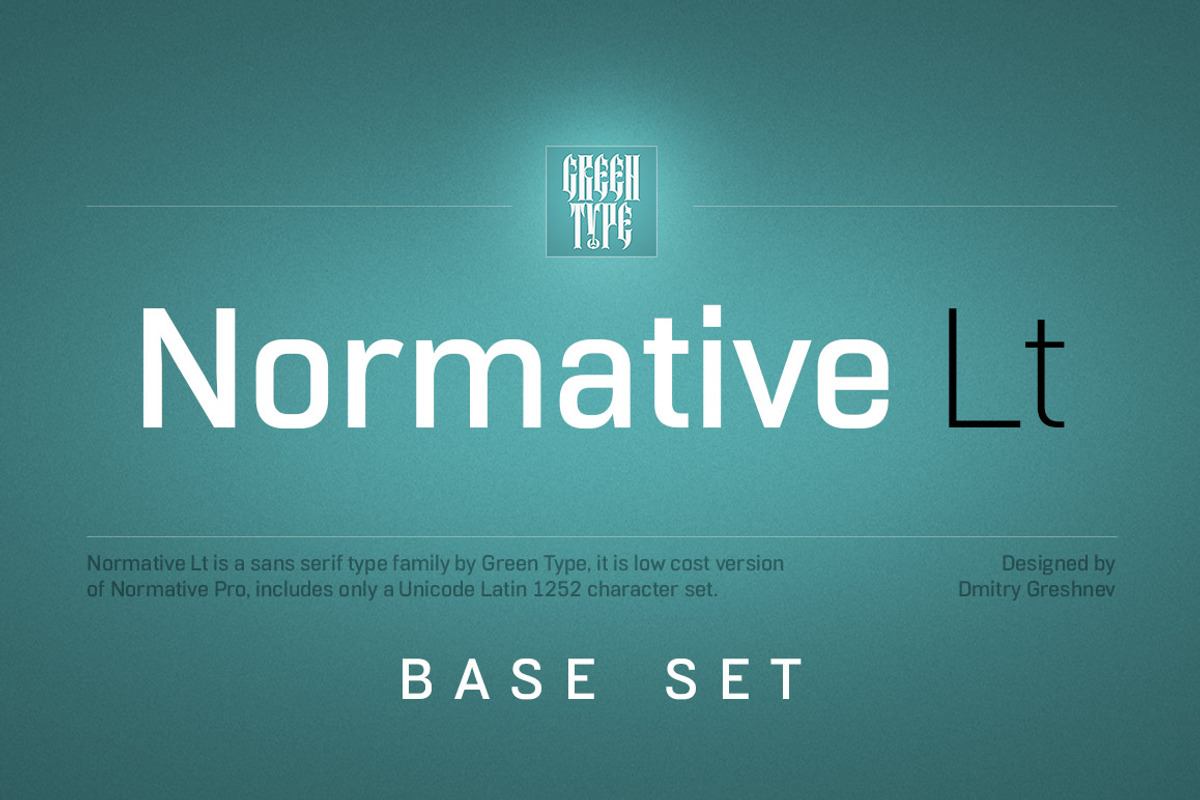
Normative Lt – 4 Fonts Free Download is a clean, modern sans serif font family that offers versatility and precision across four distinct styles. Whether you're working on corporate branding, editorial layouts, UI/UX design, or minimalist print materials, Normative Lt delivers professional quality with a sleek and structured aesthetic.
Each of the four styles in this pack is designed for clarity and balance, making it easy to establish visual hierarchy and consistency throughout your projects. Its geometric forms and even spacing ensure excellent legibility, while the subtle design details add a touch of sophistication.